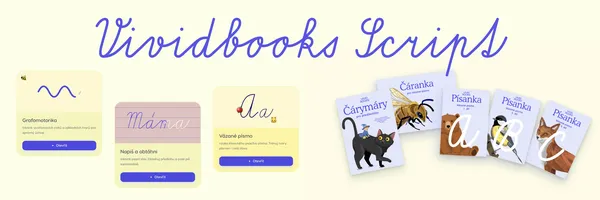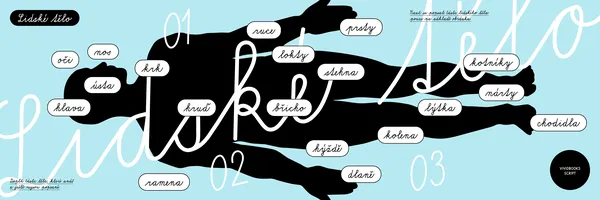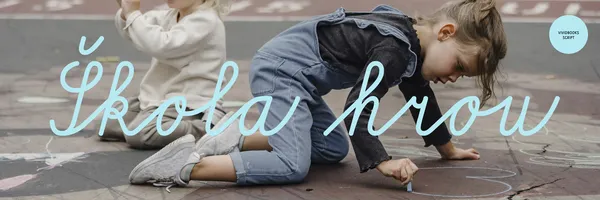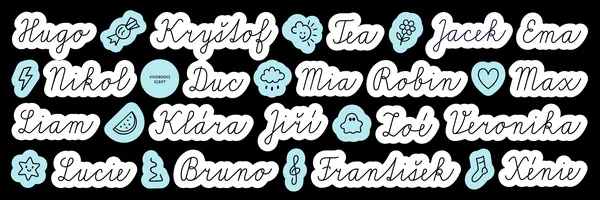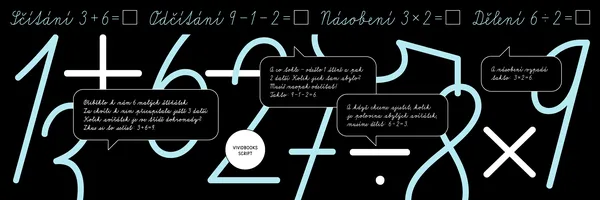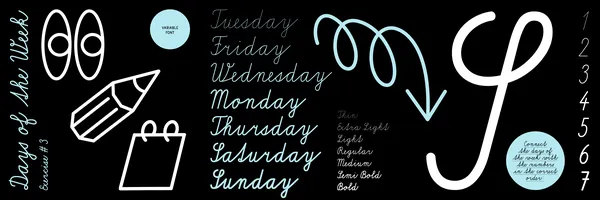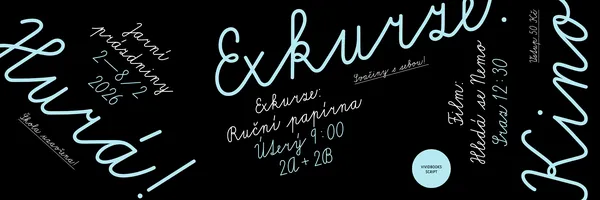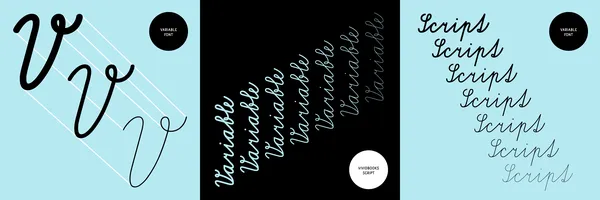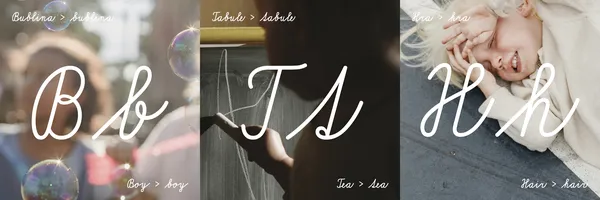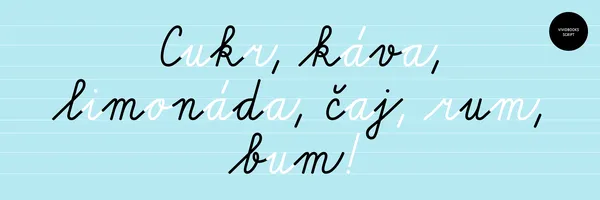
The Czech school cursive has remained unchanged in its core principles since the Reform in 1932. Subsequent revisions gradually damaged its skeleton — proportions became narrower, curves more mechanised, loops tighter, and all letters were drifted away from the natural movement of the hand. While most European countries continuously updated their educational handwriting models, Czech cursive remained almost untouched, only some poor and anonymous fonts came up over the decades, horribly drawn and in terrible technical quality. Old teaching habits and traditional approaches also won over new projects like Comenia Script.
With Vividbooks Script, we chose a different approach. Rather than replacing cursive handwriting with an unconnected and revised script typeface, the goal was to stay loyal to traditional cursive model and just modernise it’s drawing itself — updating its forms, proportions, and writing rhythm while preserving the principle of fluid letter connection. The aim was to create a contemporary, high-quality and accessible digital school script. The project was developed in collaboration with Vividbooks Publishing, an educational platform combining learning with interactive digital tools. Their open-minded approach made it possible to create the first comprehensive modernization since the 1930s.
Vividbooks Script preserves the essential qualities of traditional Czech connected cursive — fluidity, rhythm, and natural continuity between letterforms. At the same time, it introduces a more open construction, wider proportions, and simplified forms free from unnecessary decorative loops and mechanical connections. Compared to the current model, the result feels calmer, more legible, and more natural both in writing and reading. The outcome is a monolinear cursive with a balanced character. Its variable version additionally allows adjustment of weight for different dimensions.
I have been researching Czech school handwriting since my MA and PhD studies. For me, it represents an important (but not final!) step toward a broader evolution of the Czech handwriting model — one rooted in the natural movement of the hand and better aligned with contemporary children and the way we need today. My ambition for the future is to pursue an evolution of the Czech handwriting model itself and to design a script that children can use naturally — one that reflects their temperament, genuinely engages them, and grows with them into adulthood.
Full Name:PD Vividbooks Script
Styles:7 – Thin, Extra Light, Light, Regular, Medium, SemiBold, Bold
Variable font:Available
Type design:Petra Dočekalová
Designed:2025
Classification:School cursive, Script, Monolinear
Number of glyphs:675
The Vividbooks Script font was originally created for Czech educational purposes. With this in mind, the font favours forms that are faster and easier to type on a keyboard, like mathematical symbols: the multiplication sign typically represented as an asterisk (*) is rendered as a period-like dot (·), the division sign uses the form commonly typed as a colon (:) instead of (÷), etc.
In addition, the default forms of ď (dcaron) and ť (tcaron) intentionally use the pedagogically correct caron V-shape, despite it being typographically incorrect. This approach helps Czech children recognize and learn the caron as a distinct diacritical mark before later transitioning to the typographically correct Czech forms using the apostrophe-like caron (caron.salt), whose shape is visually very close to the standard acute accent, common in Czechia.
However, all typographically correct letterforms can be enabled through the stylistic set ss01 or find in the glyph set.
The Vividbooks Script features a compact character set focused primarily on Czech diacritics rather than extensive multilingual coverage, because it was originally developed for Czech educational purposes. The current release supports Czech, English, Indonesian, and Somali (Latin Script).
Česká předloha se od roku 1932 v základních tvarech prakticky nezměnila. Proporce se v průběhu normalizace zúžily, smyčky se staly těsnými — ale nikdo nikdy neřekl: pojďme ty tvary navrhnout znovu s ohledem na to, jak by dnes děti měly psát.
Písmo Vividbooks Script si zachovává základní principy kurzívy – plynulost, rytmus a přirozené navazování znaků na sebe – a zároveň zavádí otevřenější, čitelnější a širší kresbu znaků se zjednodušenými tvary bez zbytečných ozdob a kudrlinek. Design se zaměřuje
na zlepšení čitelnosti a snadnosti psaní a odstraňuje mechanické tvary, které neodrážejí přirozený pohyb ruky. Ve srovnání se stávajícím modelem se písmo vyznačuje velkorysejšími proporcemi, otevřenými smyčkami a celkově klidnější a harmonickou kresbou.
Font in use: Písanka Online
The use of Vividbooks Script extends into a broader educational system — including a new series of exercise books with larger formats and more writing space, as well as a online application called Písanka that supports and train handwriting through interactive tools, animations, and playful exercises. Try it, it’s super fun!